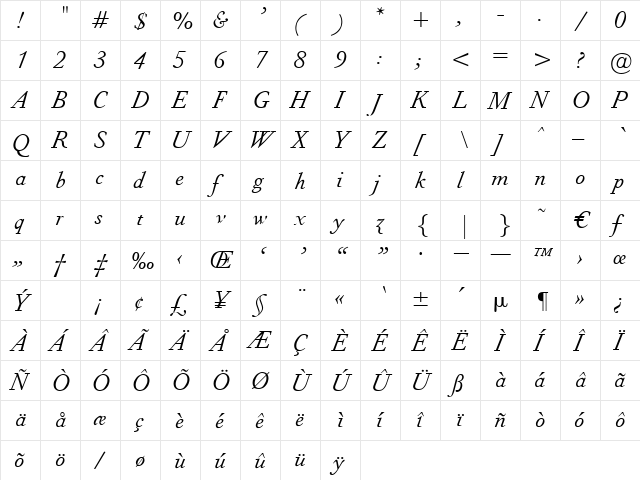
PeerGyntItalic Regular
Design Context for PeerGyntItalic Typeface
PeerGyntItalic offers clean, dependable letterforms without strong stylistic allegiance, making it a practical choice for designers who need flexibility. The dynamic lean of this cut emphasises speed and emphasis in any layout.
Pro Tip: Try PeerGyntItalic for annotation and caption copy alongside an upright companion — the contrast in angle creates a dynamic but ordered typographic system.